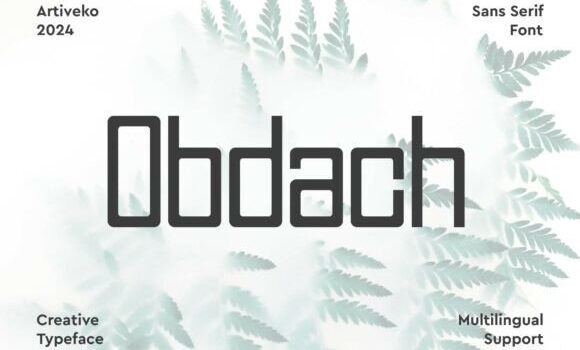
obdach
Obdach Font – Free Download Introduction to Obdach Font Obdach is a structured and modern geometric sans serif font inspired by clean design and architectural form. 📸 Preview Gallery 6 images 📌 Product Name Obdach Font 👤 Author Artiveko 📂